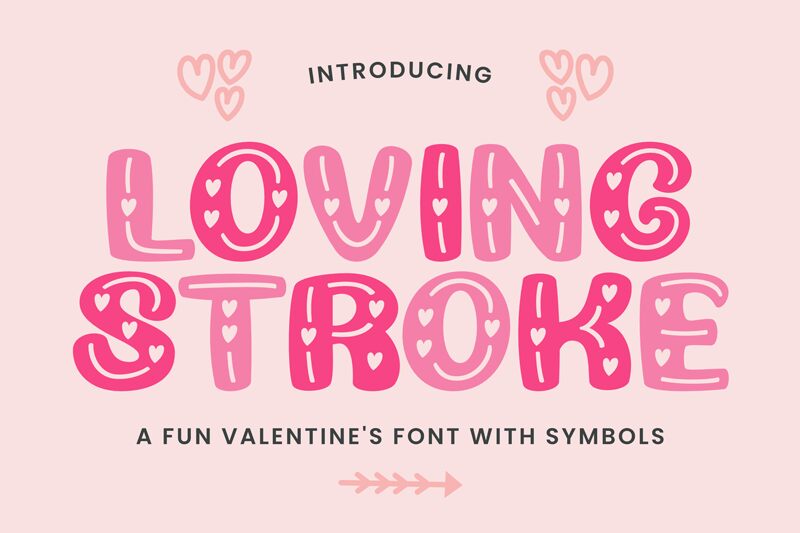
Loving Stroke font, crafted by Ahwe Project, captivates with its bold, valentine-inspired charm. This free font stands out with heart accents and playful strokes, making it perfect for romantic or whimsical design projects. Its robust style adds a touch of warmth and personality to any text.
Ideal for greeting cards, wedding invitations, and festive decorations, Loving Stroke's unique appeal enhances visual storytelling. Download this distinctive font to infuse your designs with love and creativity.